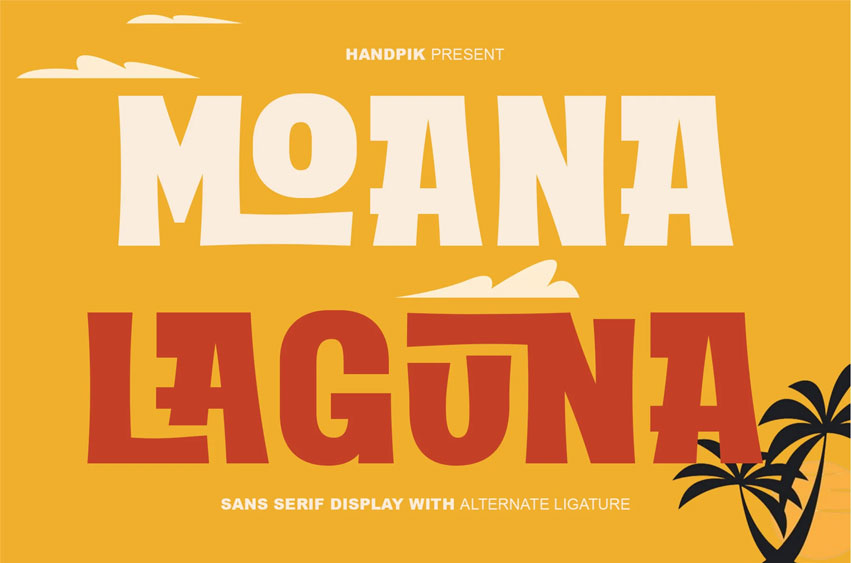
Moana Laguna Font
Moana Laguna Font is perfect for many projects: books, magazines, logos, branding, photography, quotes, blog headers, posters, advertisements, etc.